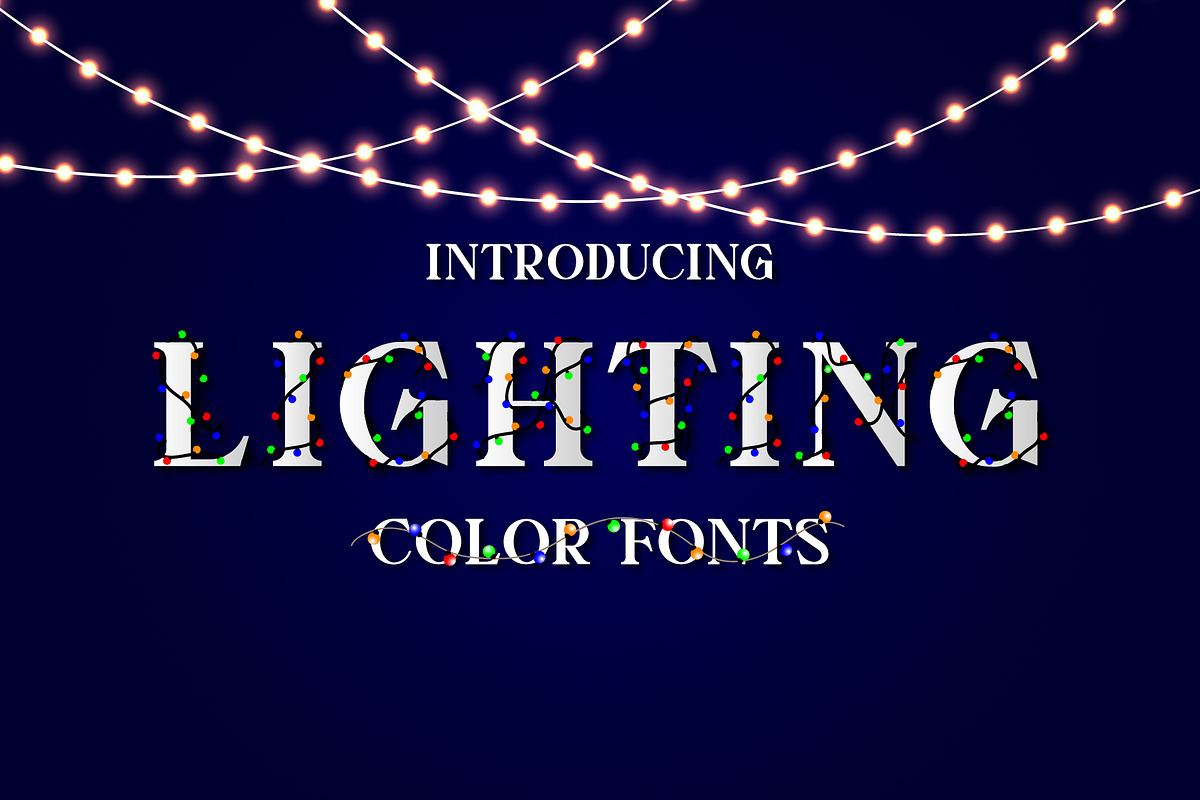
The Lighting Color Fonts Free Download is a vibrant and electrifying typeface that brings dynamic, glowing effects to your designs. Perfect for creating bold and attention-grabbing text, this font features colorful, illuminated letterforms that make your projects stand out. Whether you're designing for an event, club, advertisement, or any creative project that requires a flashy, energetic touch, Lighting Color Fonts will add a bright and modern flair.
Lighting Color Fonts Free Download is ideal for designers looking to add a high-impact, eye-catching element to their creative projects. Perfect for digital marketing, promotions, and entertainment-related designs, this font will bring your work to life with its vibrant and bold appearance. Download it today and illuminate your designs with a colorful, electrifying style!